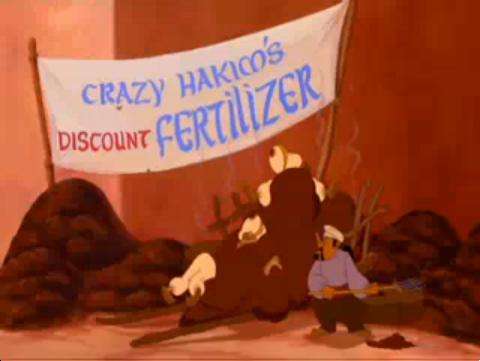
If a movie or cartoon is set in a particular period or region, sometimes the creator might want to show certain details to the audience through a sign in the background. However, said most of the audience are educated in the English language. So in order to avoid breaking the feel of the setting, the scene might just have English text in written with a typeface emulating the writing style of that region or period.
This can also occur on the covers of books or on movie posters in order to evoke the feel of the work's setting.
Compare The Backwards R. See Translation Convention for the spoken version. This is the visual equivalent of Just a Stupid Accent. An unintelligible version is Wingdinglish. Some "sketchier"-looking fonts can fall into Unfortunate Implications.
Anime & Manga
- The English-language cover art for Excel Saga, both anime and manga, uses a Japanese-styled font for the title. Bonus points for using actual katakana characters turned Latin characters.
- The kanji in Black Butler's title are written in the style of Old English blackletter calligraphy, reflecting the show's Victorian English setting. (No, really; see its page illustration!)
- Sometime around the Hoenn Saga in the Pokémon anime, the producers used a faux-Japanese text on signs, letters, etc., to make it more "acceptable" for a global audience.
- It appeared earlier in the series too. It doesn't even try to look Japanese a lot of the time, it looks like mixed up symbols.
- One scene in One Piece had a close up of Luffy's first bounty poster. Oddly, in a world that speaks English, has English signs, and English words right on the bounty poster, the Fine Print is nothing but a random assortment of letters and characters.
- Typesetting, one of the major tasks in creating anime fansubs, involves finding or in some cases creating fonts to match onscreen Japanese text, which are then placed over or near the original text.
Comic Books
- DC Comics is fond of its use of "Interlac", a universal language of the future which naturally just looks like the Latin alphabet redone in some "spacey font".
- Used extensively in Asterix, not only for writing but also in the Speech Bubbles of characters speaking foreign languages. Attempts by characters to speak another language are often shown as written in the appropriate font, but jumbled-up or ragged.
- Asterix the Legionary features an Egyptian named Ptenisnet, who speaks in hieroglyphs and must have an interpreter in order for
the readeranyone to understand him. (His name is a drawing of a tennis net.) He is interpreted by a polyglot clerk who speaks allfontslanguages.- Also occurs (obviously) in Asterix and Cleopatra, but mainly with secondary characters.
- Asterix is absolutely in love with this trope, Egyptians speak in hieroglyphics, Normans in the suitably Scandanavian-styled alphabet (with å and ø for a and o), Greeks uses the proto-Greek angular font, the Goths in blackletter, the Amerindians in pictographs, and Romans tend to get into Trajan-esque capitals when getting eloquent (with V replacing U).
- Similarly, symbols denoting curse words also change appearance based on the language the character speaks.
- Asterix the Legionary features an Egyptian named Ptenisnet, who speaks in hieroglyphs and must have an interpreter in order for
- Various letterers use interesting fonts to represent people who have an accent or are speaking an alien language.
- In Blue Beetle, the Scarab-speak letters correspond to English, but they're almost entirely illegible. However, when the Scarab gets Character Development, the letters change into more readable English while still invoking the previous version.
- The French cover (but not the English cover) of Land of Black Gold has the words "L'or Noir" written in pseudo-Arabic calligraphy. The Arabic writing underneath is a correct translation of the title (though it wasn't in the first edition; this particular book was revised many, many times).
- In The League of Extraordinary Gentlemen, most non-English speech is actually rendered in the original language. In the case of the Martians, their language is depicted using heavily-distorted mirror writing.
- 2000 AD commonly uses vaguely Cyrillic-looking letters when Nikolai Dante is on the cover.
- Thor writers like to give his dialogue a calligraphic font.
- Inverted in "Superdupont vs. Bruce Lee" cartoon by Gotlib. Superdupont uses the usual comic Symbol Swearing, peppered with some Chinese-looking symbols. Bruce Lee retorts with the same swearing symbols-only the Chinese add-ons are replaced with ABCDEF.
- Same author, "No Japonaise". The gag is played straight (to hell and back, that is) ending with stepdancing little green men.
- The title of Animesque comic Deity is rendered on the cover in a font based on Japanese katakana - to the point that it takes a moment to realize you're actually looking at English.
- the Romans did use K, but it wasn't used often (Kalendae is the example the Other Wiki gives)
- Similarly, the substitution of V for U makes something instantly Latin. Never mind those J's, K's (as in Biggus Dickus), and W's, none of which the Romans had.
- Somewhere along the line, using completely linear, angular letters (such as a lozenge for "O") became "American Indian font". Most likely because summer camps do this, and these summer camps often have totem poles.